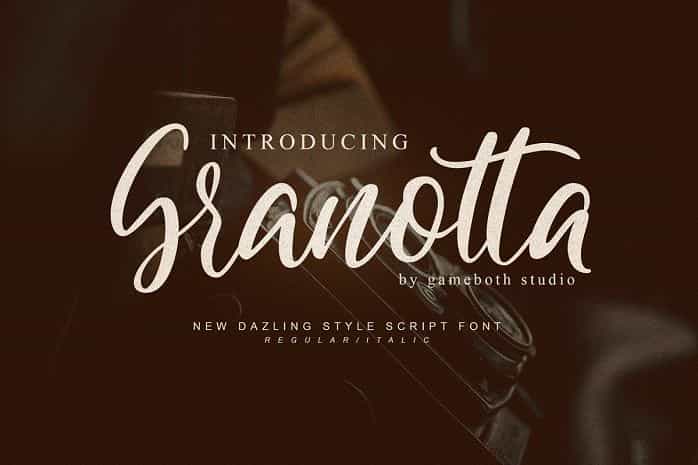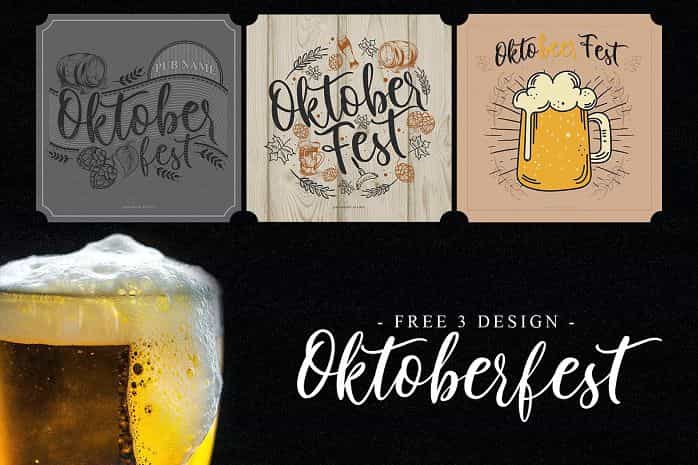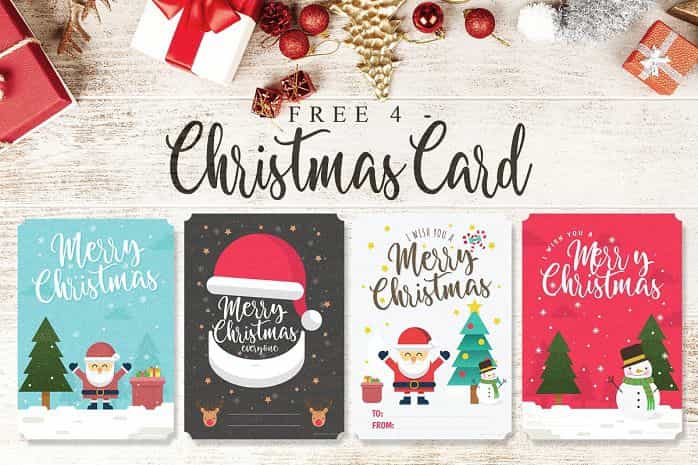
Discover Granotta Script Font, part of the Calligraphy Handwritten Comic collection—a versatile and unique font perfect for adding a personal touch to your projects. Download it for free and enjoy crafting designs with style, from invitations to social media posts. This font is available exclusively for personal use, giving you the freedom to create without limits. Unlock your creativity with Granotta Script Font today!
Introducing Granotta Font. Granotta is very best choice fonts for : Wedding Invitation, branding, web content, quotes, Posters and Logos are all the things that I offer.